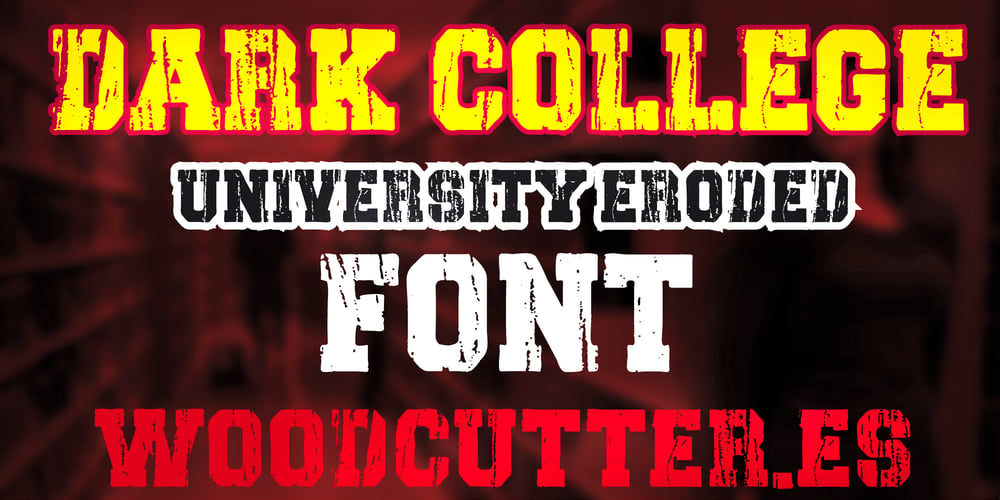
Dark College Font Family was designed by Jordi Manero and published by Woodcutter. Dark College contains 1 styles and family package options. “Dark College font merges the traditional collegiate aesthetic with a sinister twist, featuring slightly distressed letters for an eerie vibe. Ideal for projects seeking to evoke a sense of mystery and darkness, this font adds a haunting element to classic collegiate designs. Perfect for posters, branding, and signage, ‘Dark College’ brings a unique blend of familiarity and unease to your projects, creating a captivating visual impact.”–Uppercase